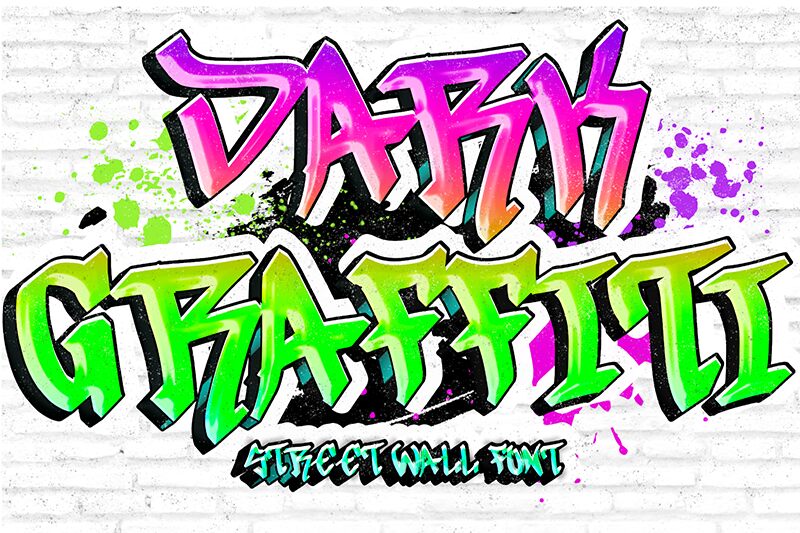
Dark Graffiti Regular
Dark Graffiti font by Yoga Letter is dark, edgy, expressive, and rebellious. Inspired by rough urban streets, this graffiti style captures the essence of street art. The letters are legitimately crafted in a raw fashion that adds to the professional quality this bold display font has to offer.